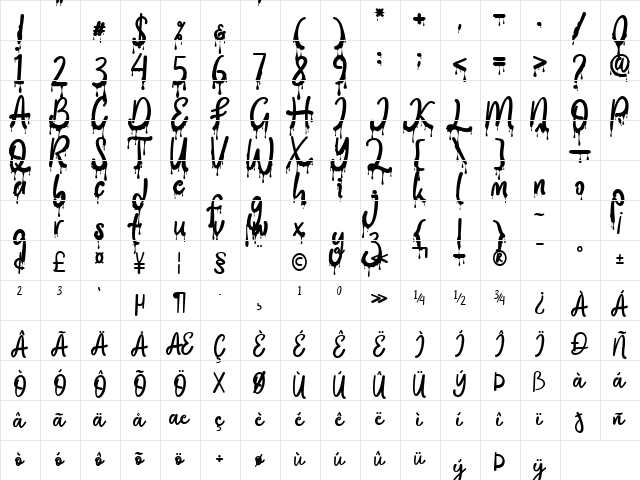
Halloween Party Regular
| Designer | Yogaletter 2020 (Isroni Yoga Prasetya) |
Design Context for Halloween Party Typeface
Halloween Party is a composed and adaptable typeface that performs quietly and consistently across a wide range of design contexts.